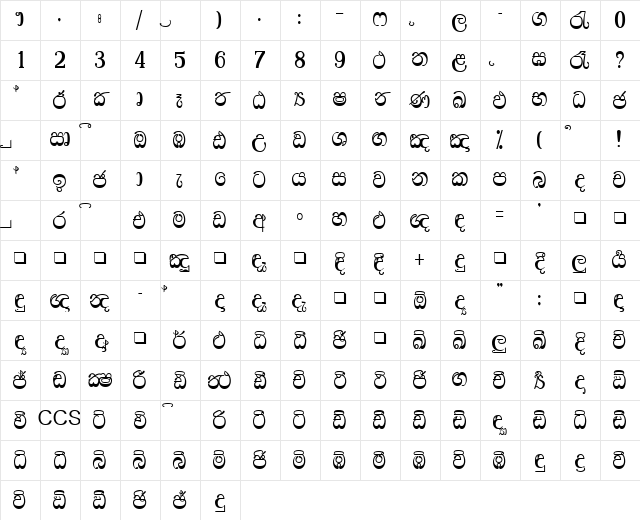
AA-Ridhma. Plain.
Style: Plain.
Design Context for AA-Ridhma.
AA-Ridhma. is a composed and adaptable typeface that performs quietly and consistently across a wide range of design contexts.